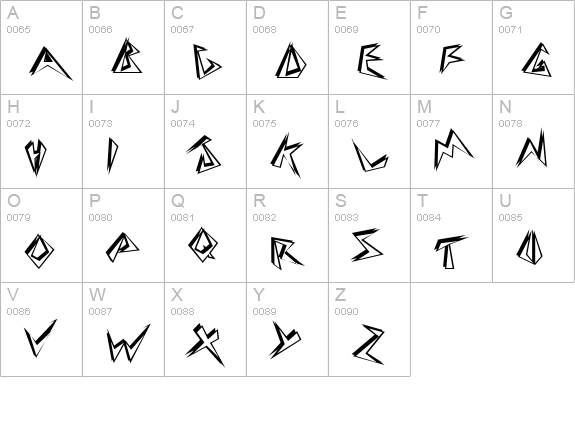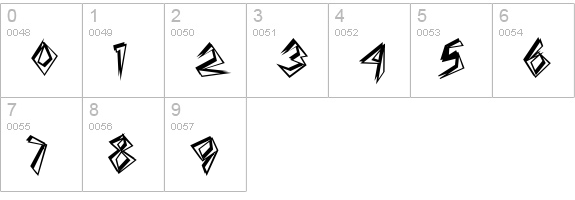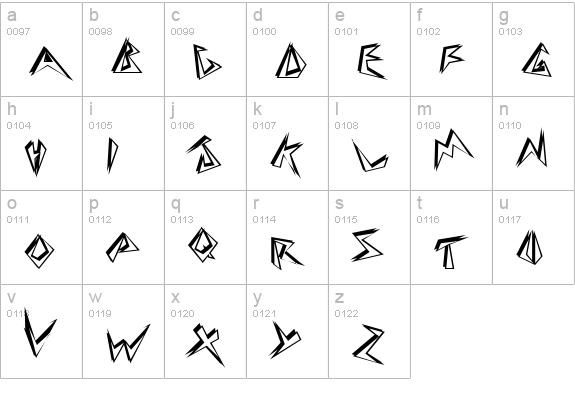
Beeswax Bold is a strong, high-contrast variant in the Beeswax typeface family \xE2\x80\x94 well suited to headlines, attention-grabbing titles, and strong calls-to-action.
Beeswax Bold font is a striking and impactful typeface that exudes confidence and strength. Its bold letterforms command attention and make a statement in any design project. The clean lines and sharp angles give Beeswax Bold a modern and edgy look that is perfect for headlines, logos, and branding materials. What's more, Beeswax Bold font is available for free download at FontsMarket.com. This means you can easily access this versatile and eye-catching font to elevate your designs without any cost. Whether you're working on a poster, website, or packaging, Beeswax Bold font will make a bold statement and leave a lasting impression on your audience. Download it now and take your designs to the next level with this powerful and dynamic typeface.